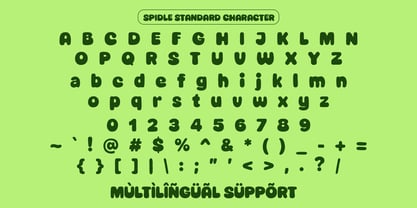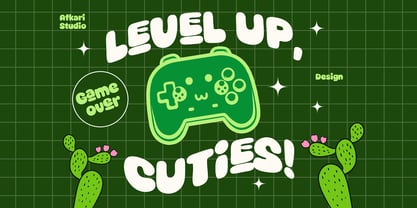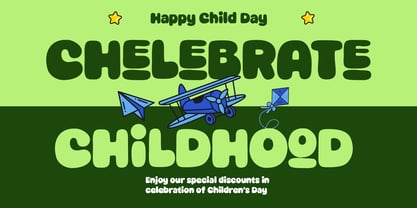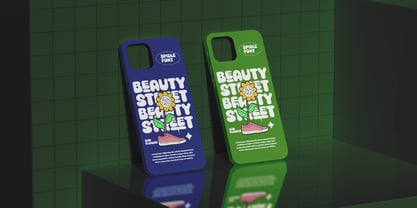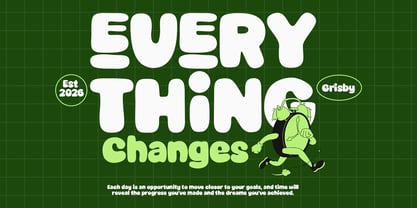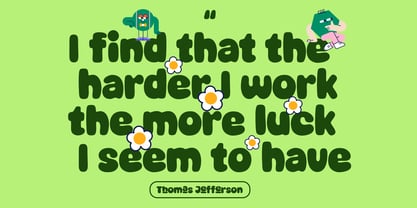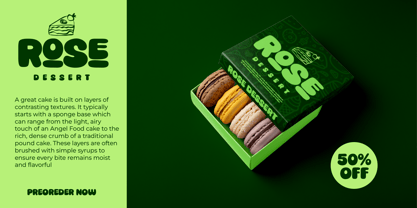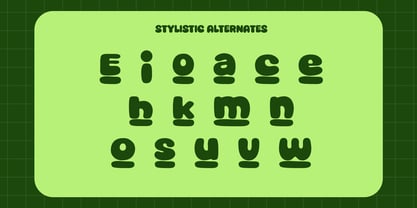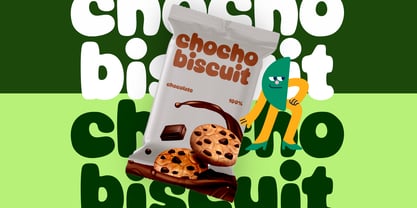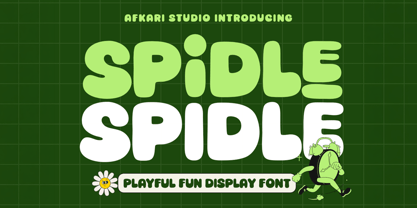
Spidle
by Afkari Studio
The Spidle Font Family was designed by Musthafa Kamal Emje and published by Afkari Studio. Spidle contains 1 styles. More about this family
Spidle is a playful fun display font crafted to deliver cheerful personality and eye-catching typography for modern creative projects. Featuring bold, bouncy letterforms and friendly character shapes, this font instantly creates a joyful and approachable visual style. Designed for designers and content creators who need typography that feels expressive and energetic, Spidle maintains strong readability while adding a lively and modern playful tone to headlines and branding. Perfect for both digital and print applications, Spidle works beautifully for kids branding, packaging, posters, merchandise, social media graphics, and creative marketing visuals. Whether you're designing logos, posters, product packaging, or social media content, Spidle helps your typography stand out with warmth, fun, and memorable character. Highlighted Features: - Playful fun display font - Bold and friendly letterforms - Uppercase & lowercase characters - Strong readability for headlines - Numbers, punctuation & Alternates - Fully accessible without additional design software. - Mültîlíñgúãl Sùppört for; ä ö ü Ä Ö Ü ß ¿ ¡ Whether you're creating fun branding, colorful packaging, or energetic promotional materials, Spidle brings a joyful and expressive character to every layout. Its friendly letterforms make your message feel approachable, creative, and instantly engaging across both digital and another media.
Designers: Musthafa Kamal Emje
Foundry: Afkari Studio